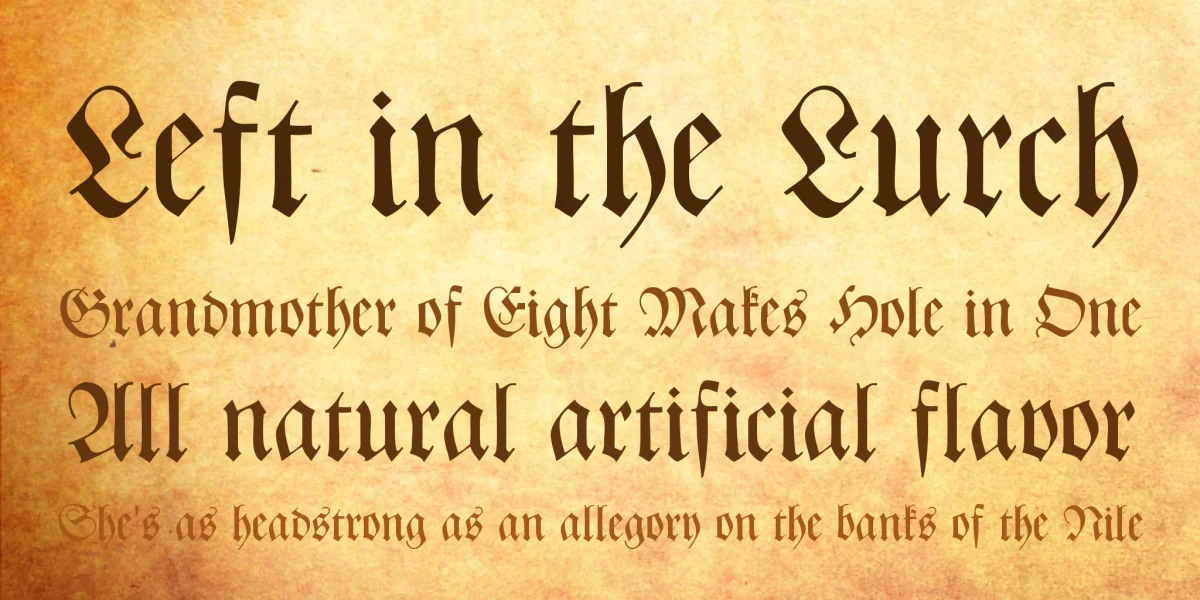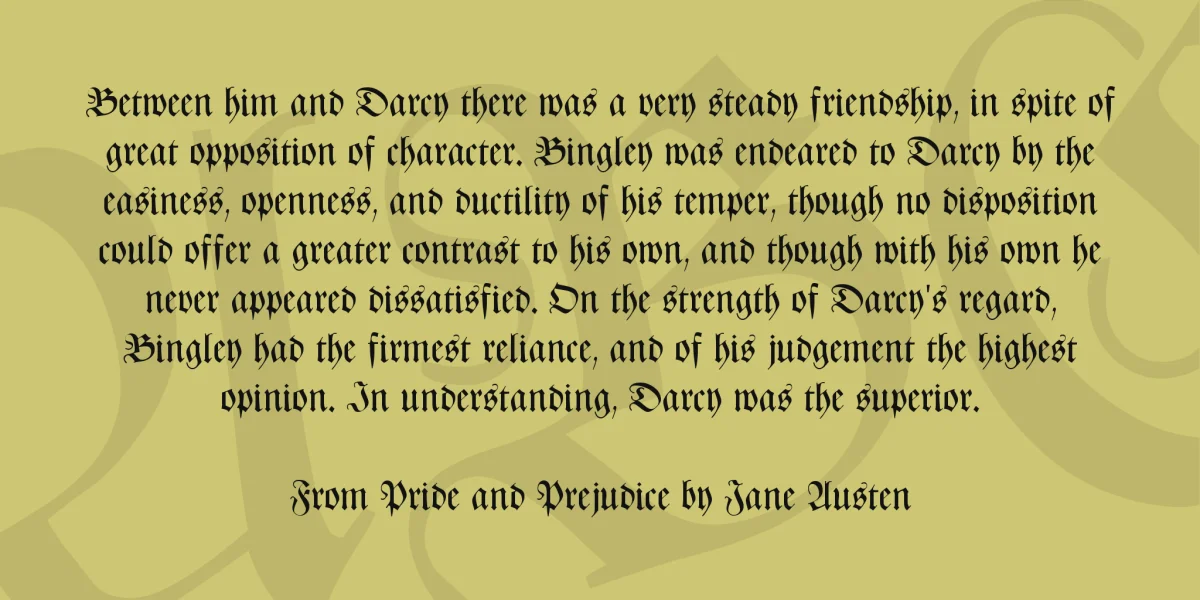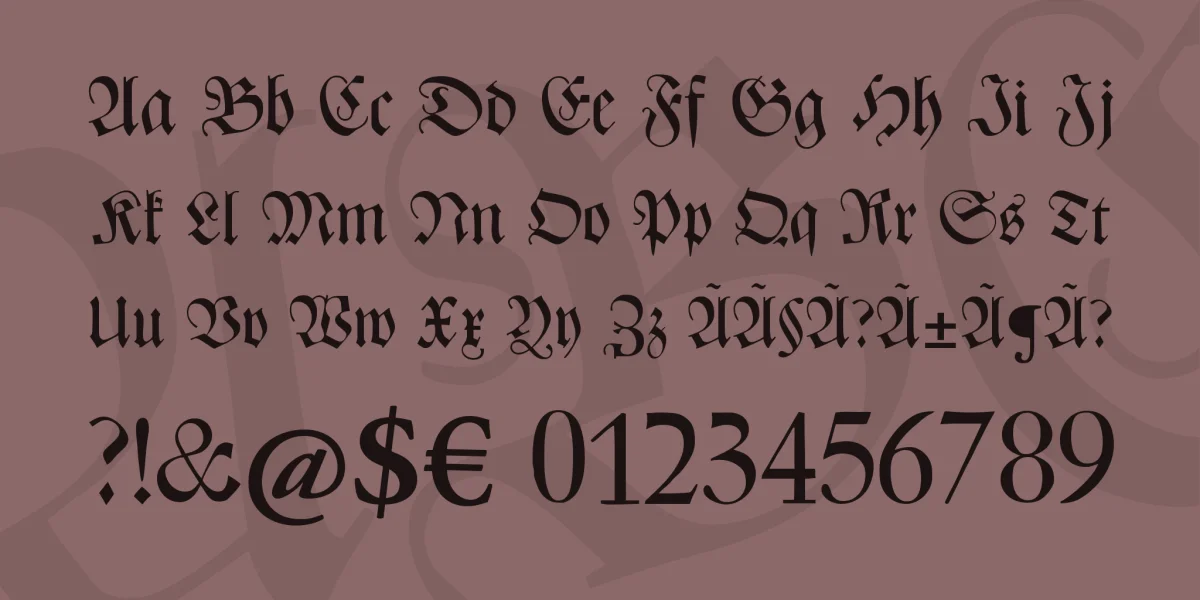
Translated from the original German description: In 1937 in spite of the 100th anniversary of the baulichen Gießerei in Frankfurt am Main, the font font Zentenar Fraktur was designed by Professor Friedrich Hermann Ernst Schneidler . (Zentenar means here: the centennial, this refers to the anniversary of the font foundry throws a classic blackletter on the market for their anniversary) The type foundry wrote about this font: at distinct nature of the drawing she joins in overall impression the usual image of an old blackletter very closely. For this blackletter was one of the last newly developed in German blackletter classical writings.
For this font I own o a full character list on a sheet of "type-outline-card" on which this font is printed in a size of 28 points. I have tried hereafter to trace the characters as faithfully as possible. Thus, this font is now available as a separate digitization, completely free of charge. The ligatures shown on the index card have been extended to the entire UNC-set, so that this font is to use along with my other blackletter fonts.